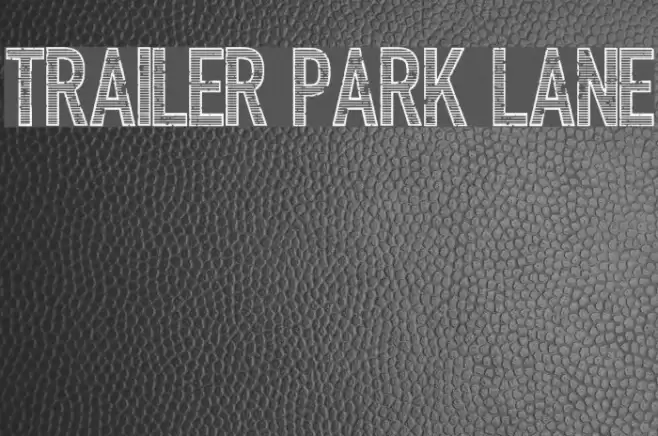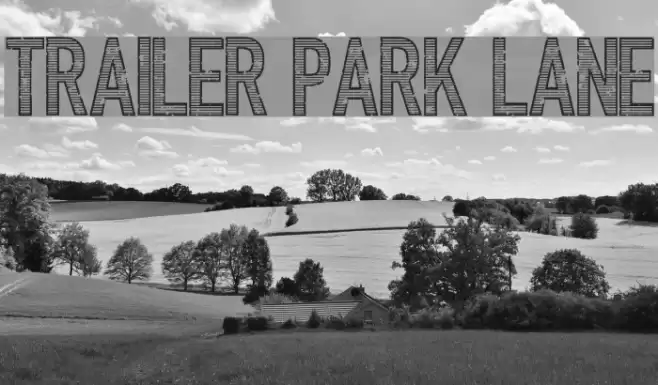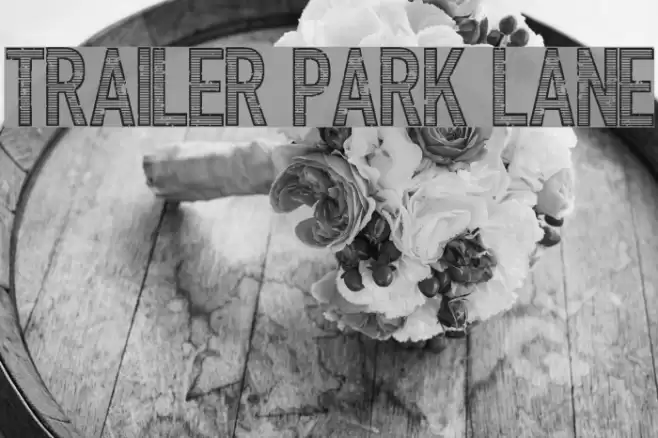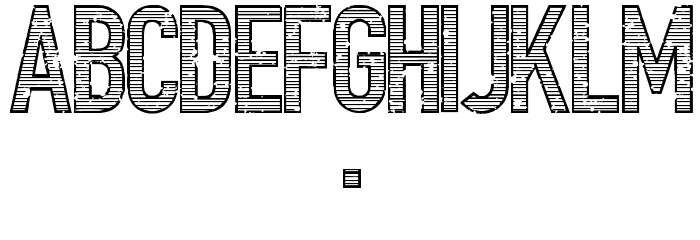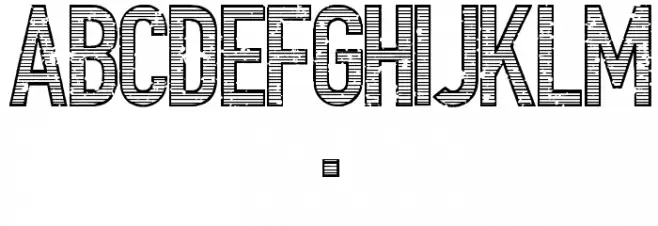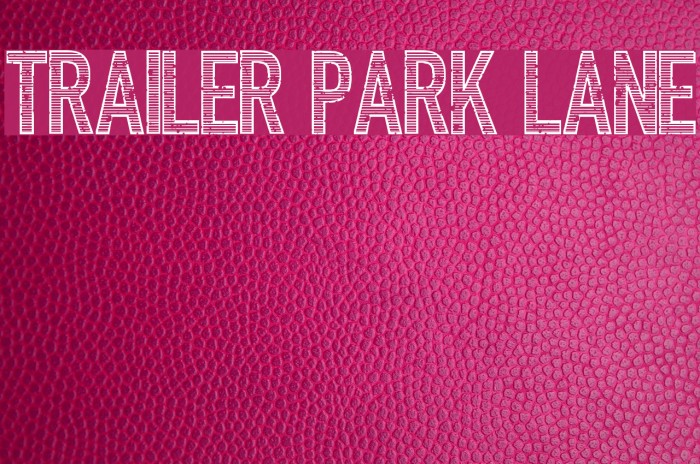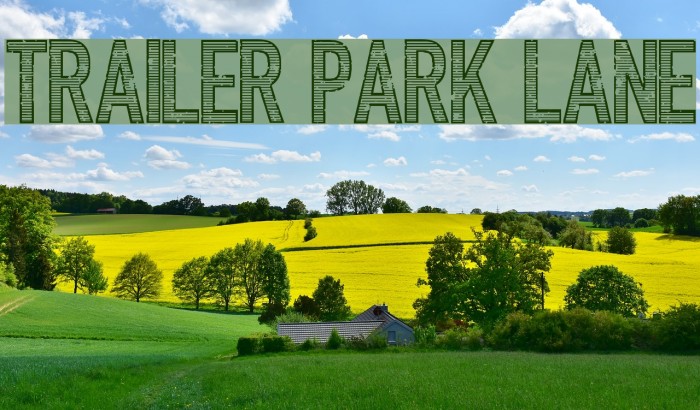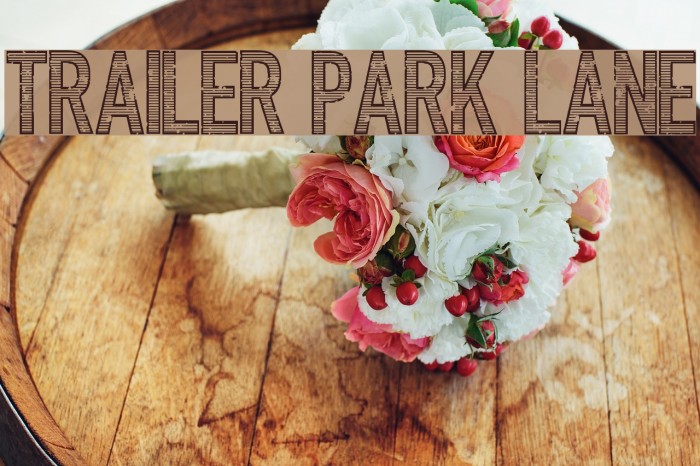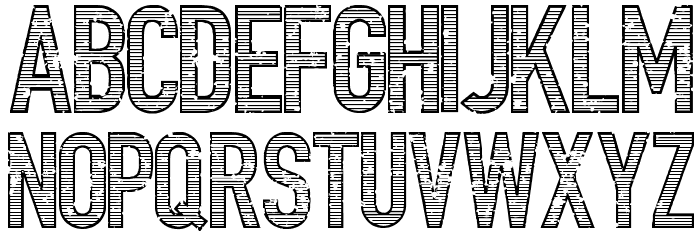
Trailer Park Lane Font
Trailer Park Lane Description
This font features a bold, decorative style with a unique striped pattern filling each character. The uppercase letters are prominent and eye-catching, making them ideal for display purposes. The design incorporates a modern twist on traditional block lettering, with each character outlined to enhance its visibility and impact. The striped pattern within the letters adds a textured effect, giving the font a dynamic and engaging appearance. This font is well-suited for projects that require a strong visual presence and a touch of creativity.
A bold, decorative font with a unique striped pattern for impactful display use from Uncategorized fonts.